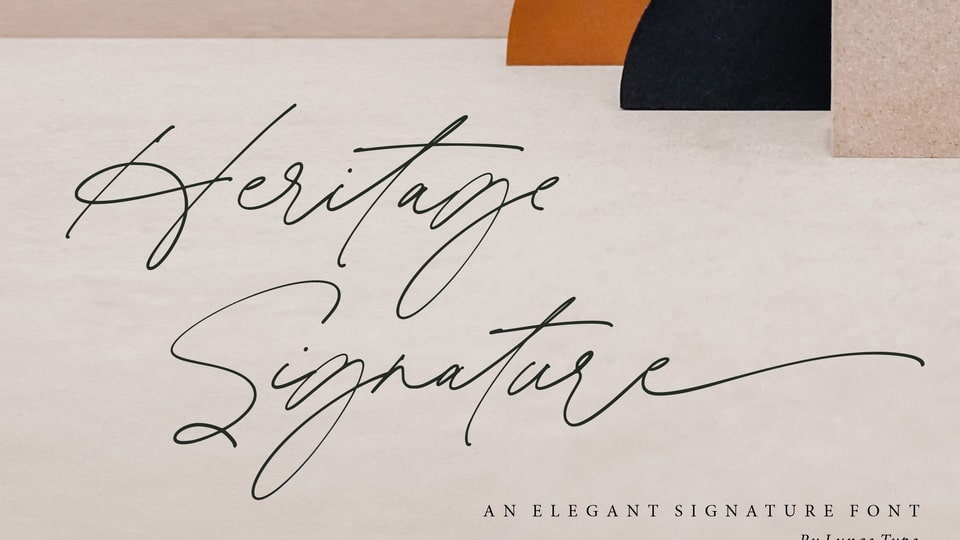
Download Heritage Signature font, a modern and stylish signature typeface. Heritage Signature script has natural flow and unique shapes for each letter.
Designer: Lunas Type